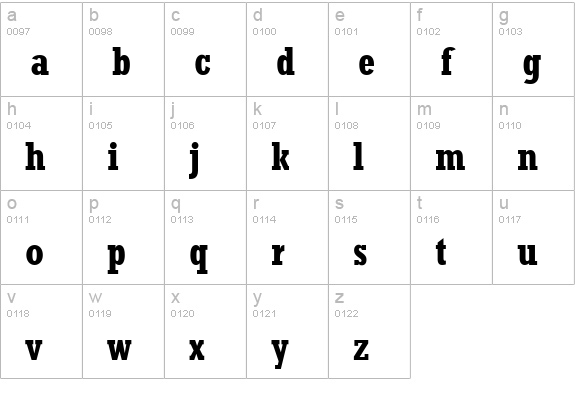
Astute Condensed SSi Bold Condensed is a strong, high-contrast, condensed-width variant in the Astute typeface family \xE2\x80\x94 well suited to headlines, attention-grabbing titles, and strong calls-to-action.
Astute Condensed SSi Bold Condensed is a modern and versatile typeface that exudes confidence and sophistication. With its bold and condensed design, this font is perfect for making a statement in headings, titles, and branding materials. The sharp edges and clean lines give a professional look to any project, while the bold weight ensures maximum impact. And the best part? Astute Condensed SSi Bold Condensed is available for free download at FontsMarket.com. Whether you're a designer looking to add a powerful touch to your creations or a business owner aiming to enhance your brand's visual identity, this font is the perfect choice. Don't miss out on the opportunity to elevate your designs with this sleek and stylish typeface. Download Astute Condensed SSi Bold Condensed now and make a lasting impression with your projects.